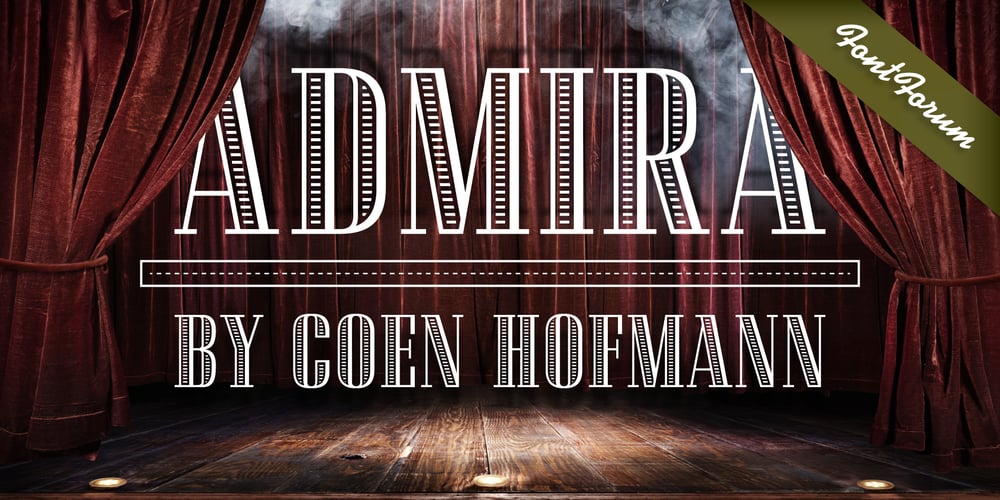
Admira
Admira font
Admira Font Family was designed by Coen Hofmann and published by FontForum. Admira contains 1 styles and family package options. Coen Hofmann revives an original design by Germany type foundry Schriftguss from 1940: His digital Admira is expanded with an extensive open type character set and even provides full Cyrillic. The face is set to best use at point sizes above 24.